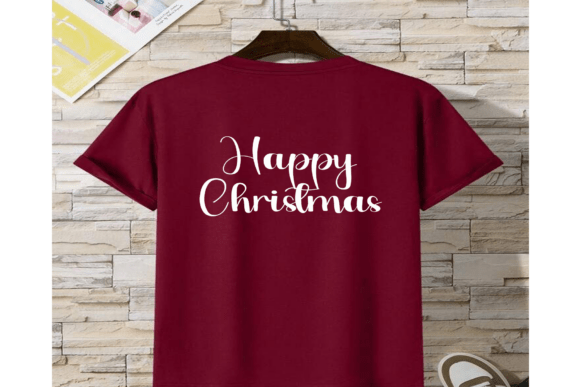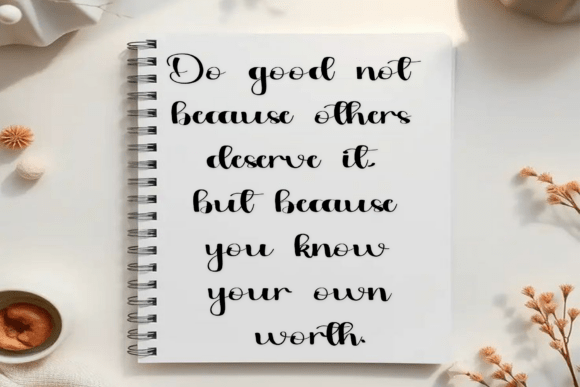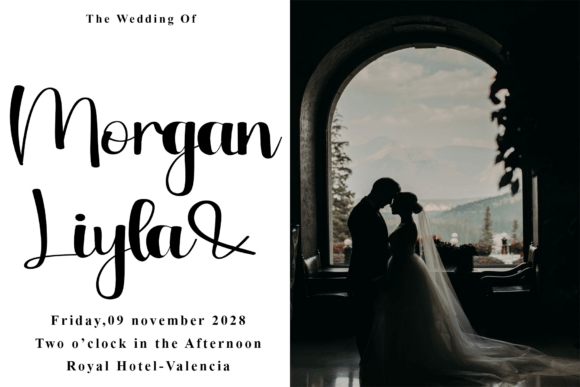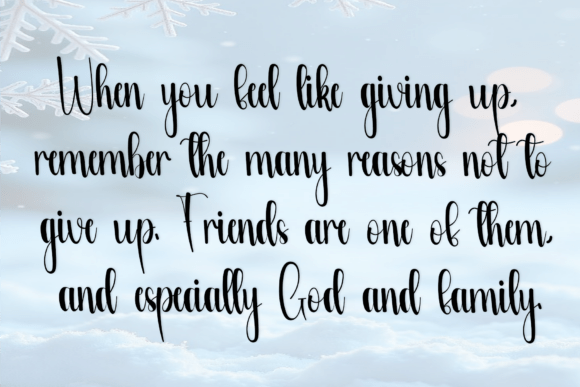
Introduction to Simple Notebook Font Font
Remember that moment when you scribbled down your creative idea in a notebook, and it felt like the world was opening up to you? The joy of putting pen to paper, watching your thoughts take shape, and feeling a sense of ownership over your ideas – that’s what the Simple Notebook Font Font is all about.
As a designer, you’re always on the lookout for that special something that sets your project apart. The Simple Notebook font is a game-changer, offering a unique blend of authenticity and professionalism that’s hard to find in traditional fonts. Its smooth lines, playful loops, and friendly personality make it perfect for projects that require a genuine connection with your audience.
Key Features of Simple Notebook Font Font
- Unique characteristics include handwritten and cursive styles, perfect for adding a personal touch to creative projects.
Honest Review: Simple Notebook Font Font
I recently stumbled upon the Simple Notebook Font Font, and I must say, it’s been a game-changer for my creative project. The transparent background feature is a huge plus, allowing me to easily overlay the font on any image or design without worrying about it getting in the way.
One of the things that works well with this font is its high quality. The characters are crisp and clean, making it perfect for both digital and print projects. I’ve used it for a few design pieces, and the results are always top-notch.
- High-quality characters for crisp, clean designs
However, there are a few limitations to keep in mind ⚠️. The font is only available in a few weights, which may not be ideal for projects that require a lot of variation. Additionally, the font may not be compatible with all operating systems, so be sure to test it before using it in a critical project.
Overall, I’m thoroughly impressed with the Simple Notebook Font Font. It’s a fantastic design resource that’s sure to help take your creative project to the next level. ✨
To use Simple Notebook Font Font in PowerPoint and Word, start by creating a new document and selecting the font from the font menu. You can customize the font by adjusting the size, color, and opacity, and also add a transparent background to make the text more visually appealing.
Download the Simple Notebook Font Font for free and use it as a design resource for your creative project. This font is ideal for creating a high-quality and unique look for your project. You can also use it to add a personal touch to your designs.
The Simple Notebook Font Font is commonly used for creative projects such as logo design, branding, and advertising. It is also ideal for use in educational materials, such as notebooks and textbooks, due to its simple and elegant design.